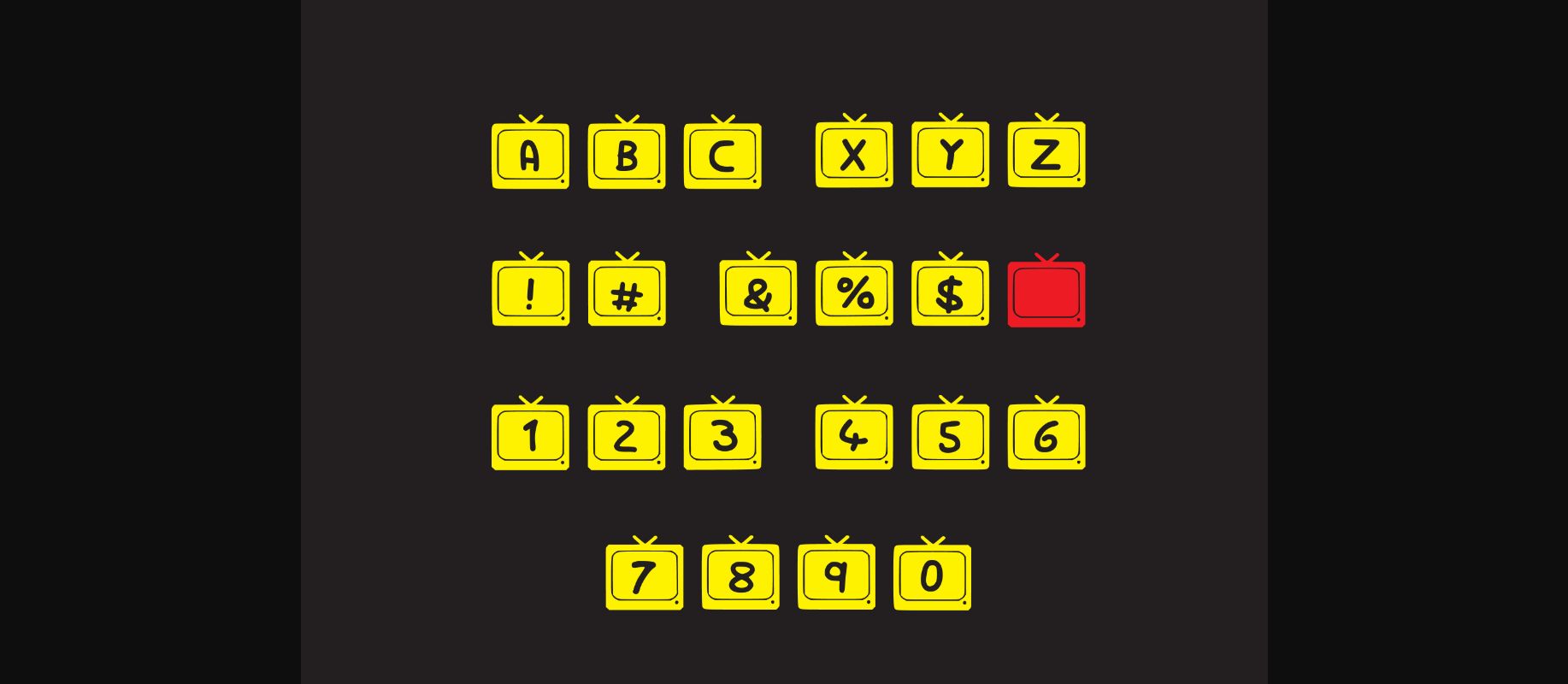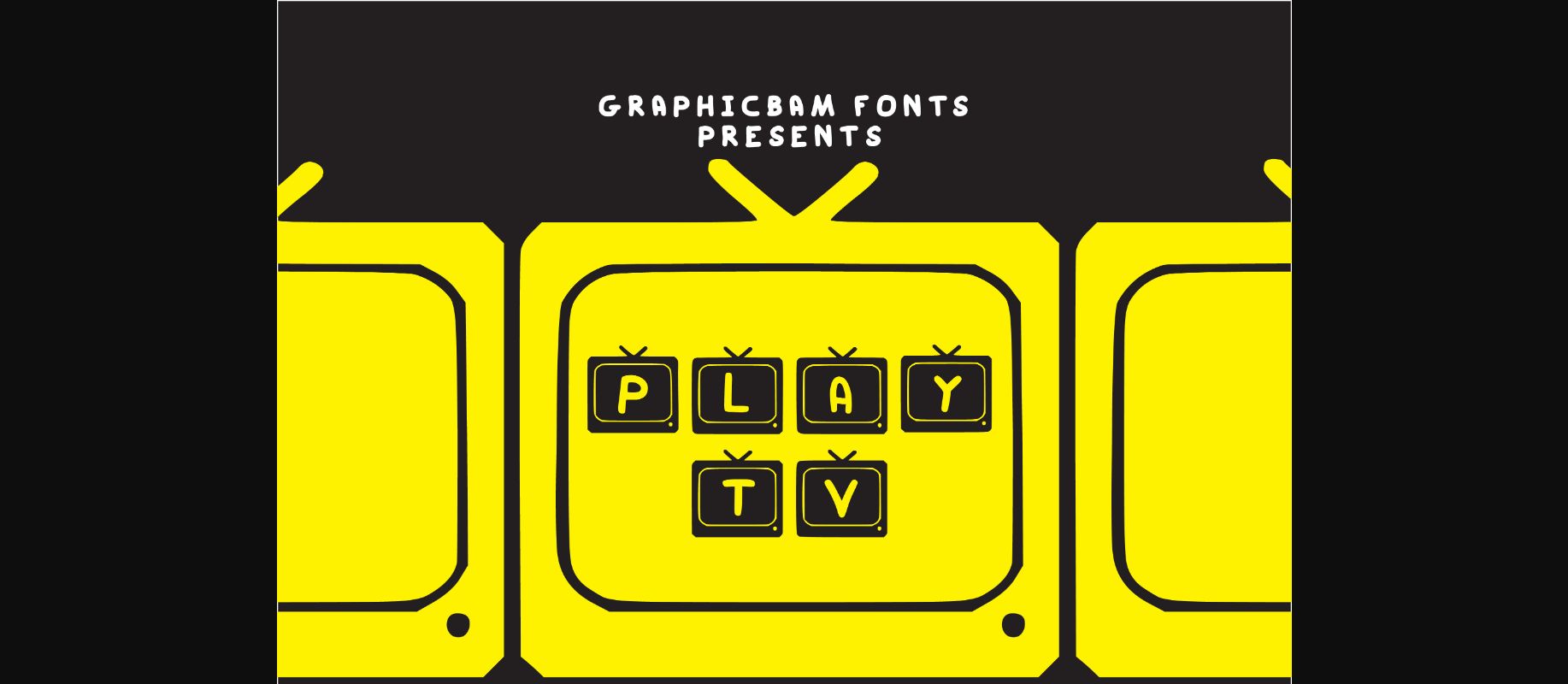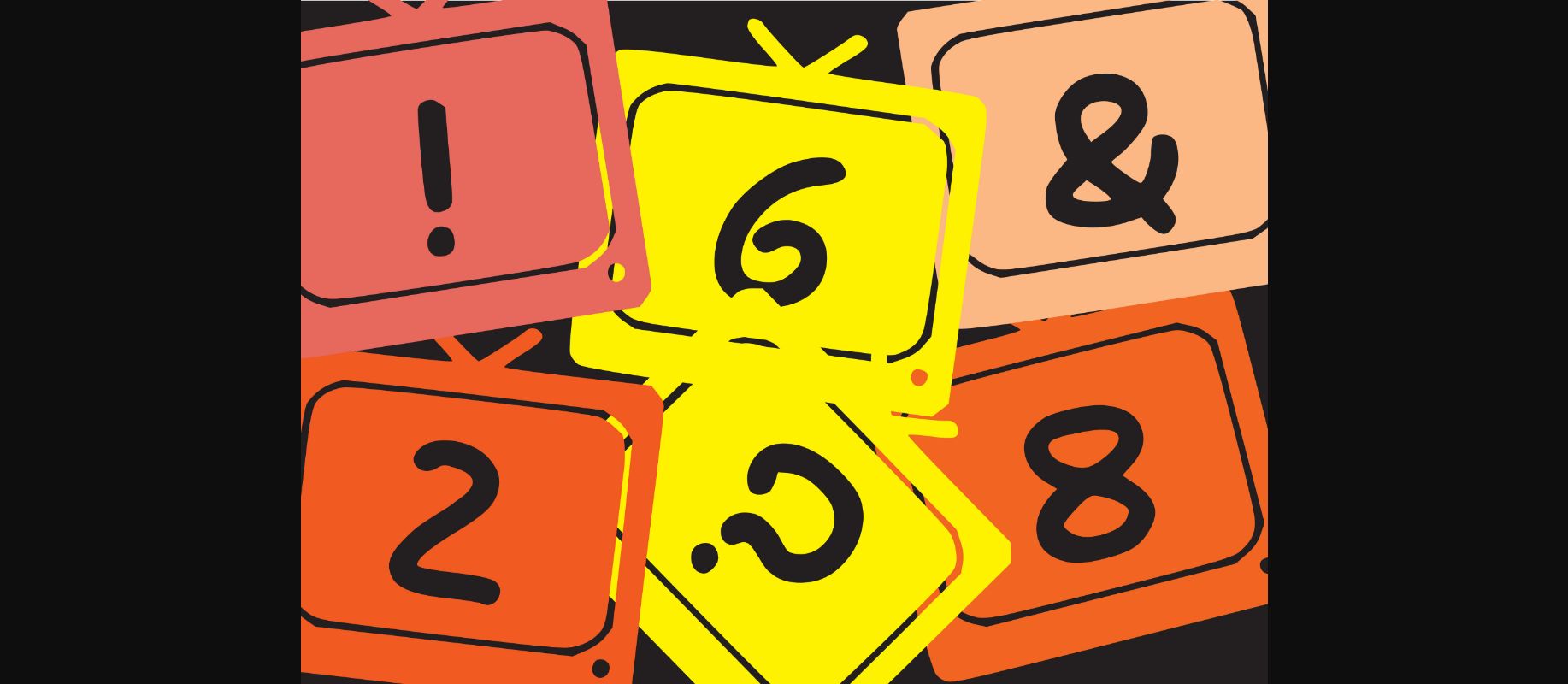
HomeDecorative FontsPlay TV Font Decorative Fonts Play TV Font FacebookXPinterestWhatsApp 1 of 5 ... Play TV Font Poster 2... Play TV Font Poster 3... Play TV Font Poster 4... Play TV Font Poster 5... About Play TV Font Play TV is a playful decorative font with a retro feel. Use this font for any crafting project that requires a personalized look! DOWNLOAD NOW People also explored Magna Black Font Dreams Font Monas Font Homeworks Font Small Child Font Love Time Font Happy Dreams Font Banda Neira Font Holga 399 0 TagsPlay TVPlay TV Font Previous articlePlay Tree FontNext articlePlay Watch Font LEAVE A REPLY Cancel reply Comment: Please enter your comment! Name:* Please enter your name here Email:* You have entered an incorrect email address! Please enter your email address here Website: Save my name, email, and website in this browser for the next time I comment. Personal Use Free Breakaway Personal Use Free Read more about this font Built Tilting Personal Use Free Read more about this font Welcome Creative Personal Use Free Read more about this font Leorio Personal Use Free Read more about this font BLOG Free vs Paid Fonts: Why Investing in Premium Fonts Is Worth It Free vs Paid Fonts: Why Premium Fonts Are Worth It in 2025 The debate of free vs paid fonts continues in the design world. While... Top 10 Handwritten Fonts That Elevate Your Designs How to Cut Any Font on Cricut: Convert a Font to SVG (Free) Elegant Wedding Invitation Fonts – Handwritten & Script Fonts